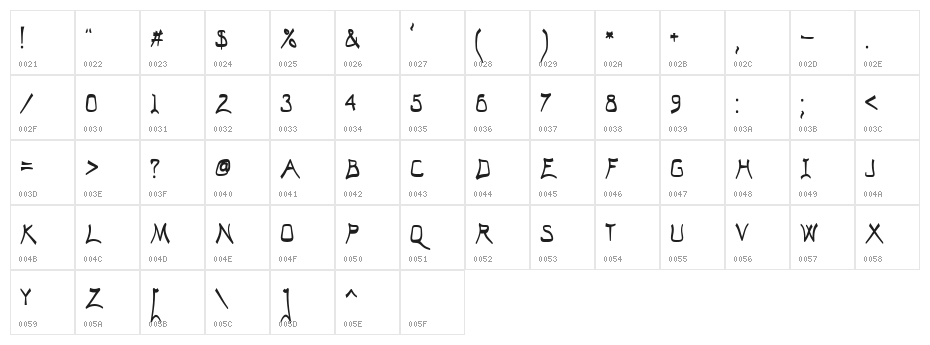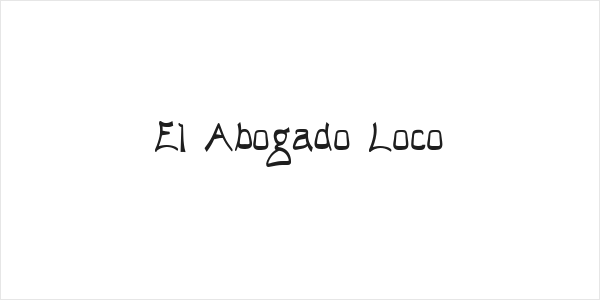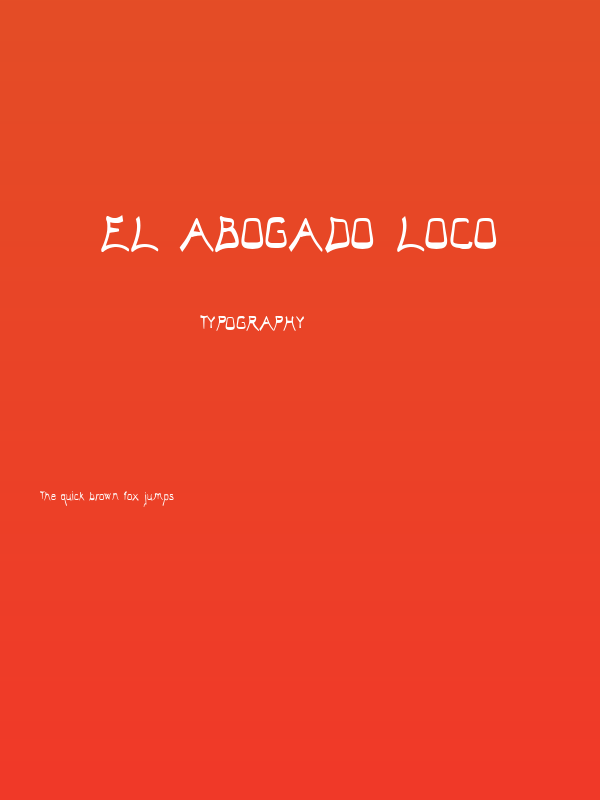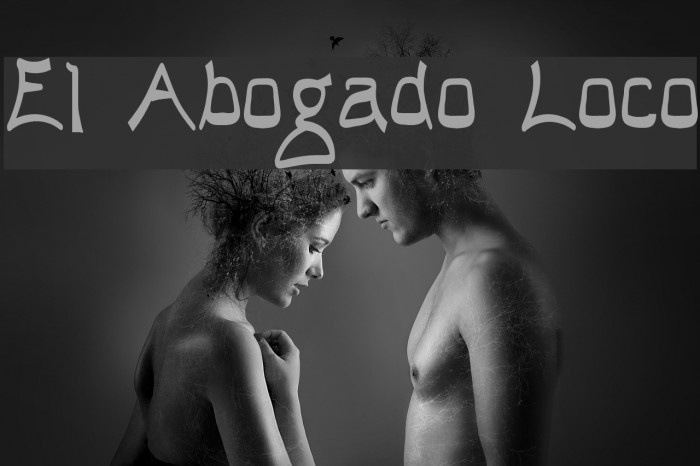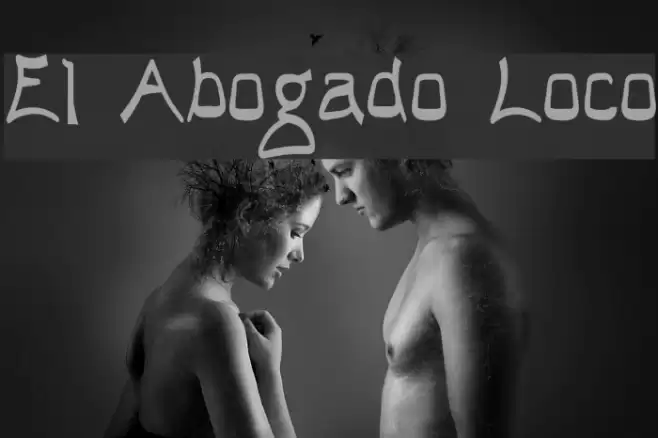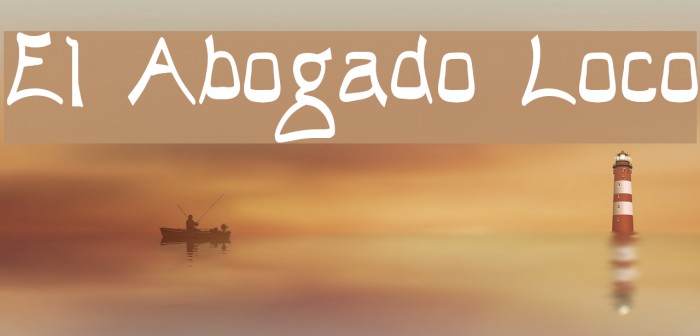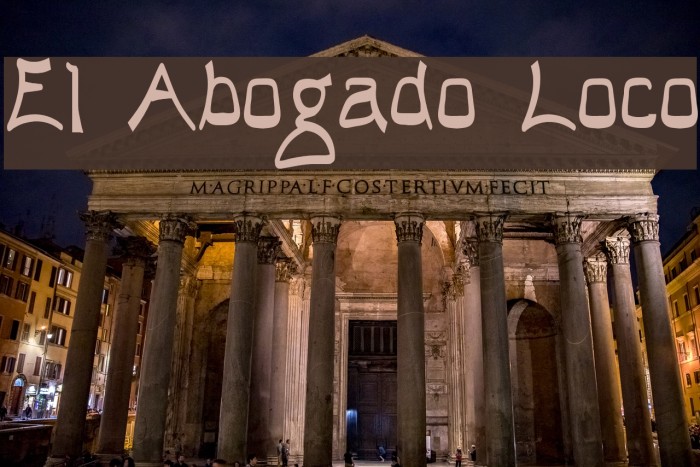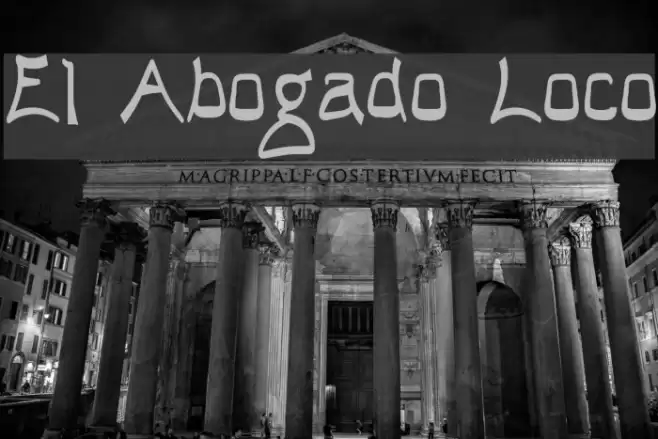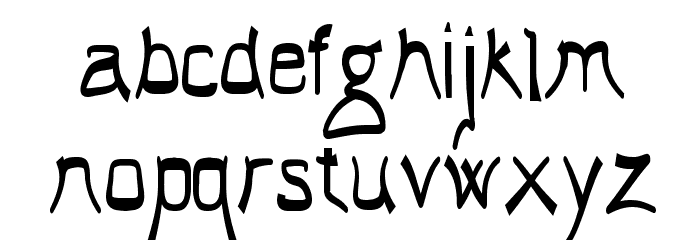
El Abogado Loco Font
El Abogado Loco Description
This font features a unique and quirky design with irregular, angular shapes that give it a playful and eccentric appearance. The characters have a hand-drawn quality, with varying stroke thicknesses and uneven baselines, adding to its whimsical charm. The uppercase letters are bold and prominent, while the lowercase letters maintain a consistent style with slight variations in height and width. Numbers and special characters follow the same unconventional style, making the font suitable for creative and artistic projects. Its distinctive look makes it stand out, perfect for capturing attention.
| Overall Style | Whimsical, Artistic |
| Proposed Projects | Ideal for creative projects such as posters, album covers, comic books, and children's book illustrations. |